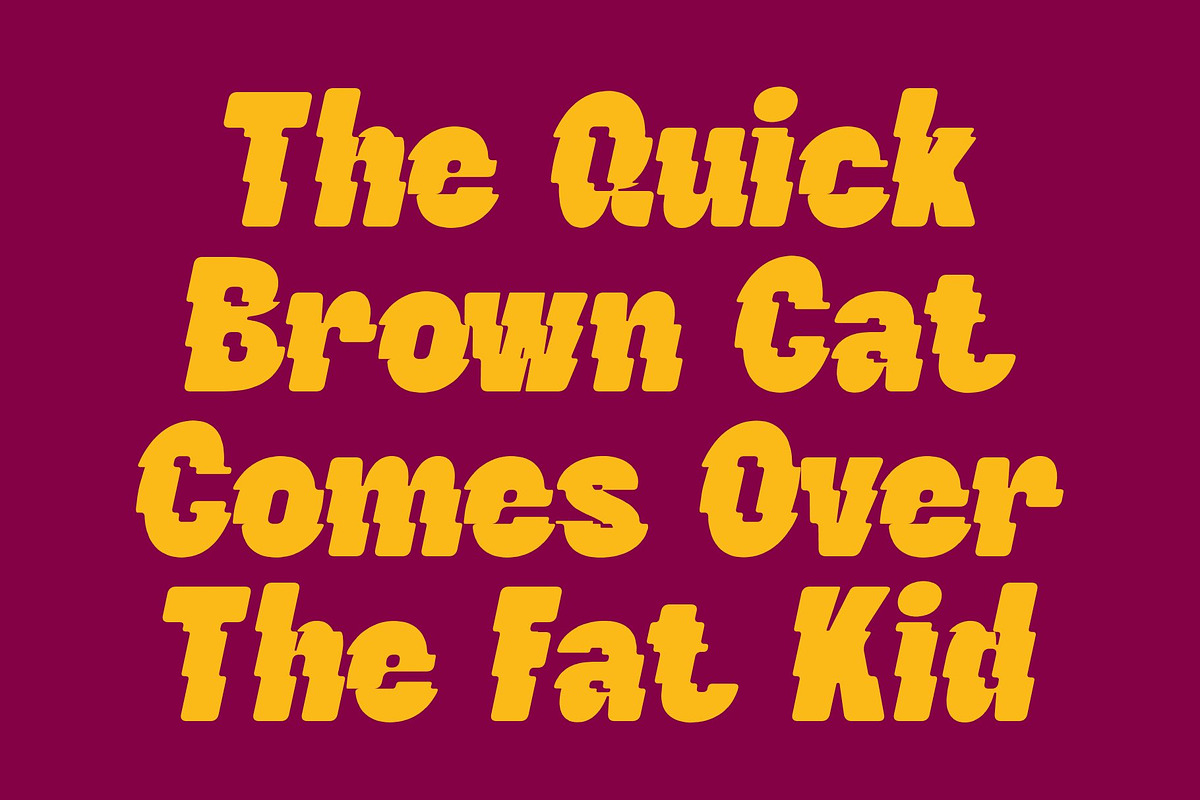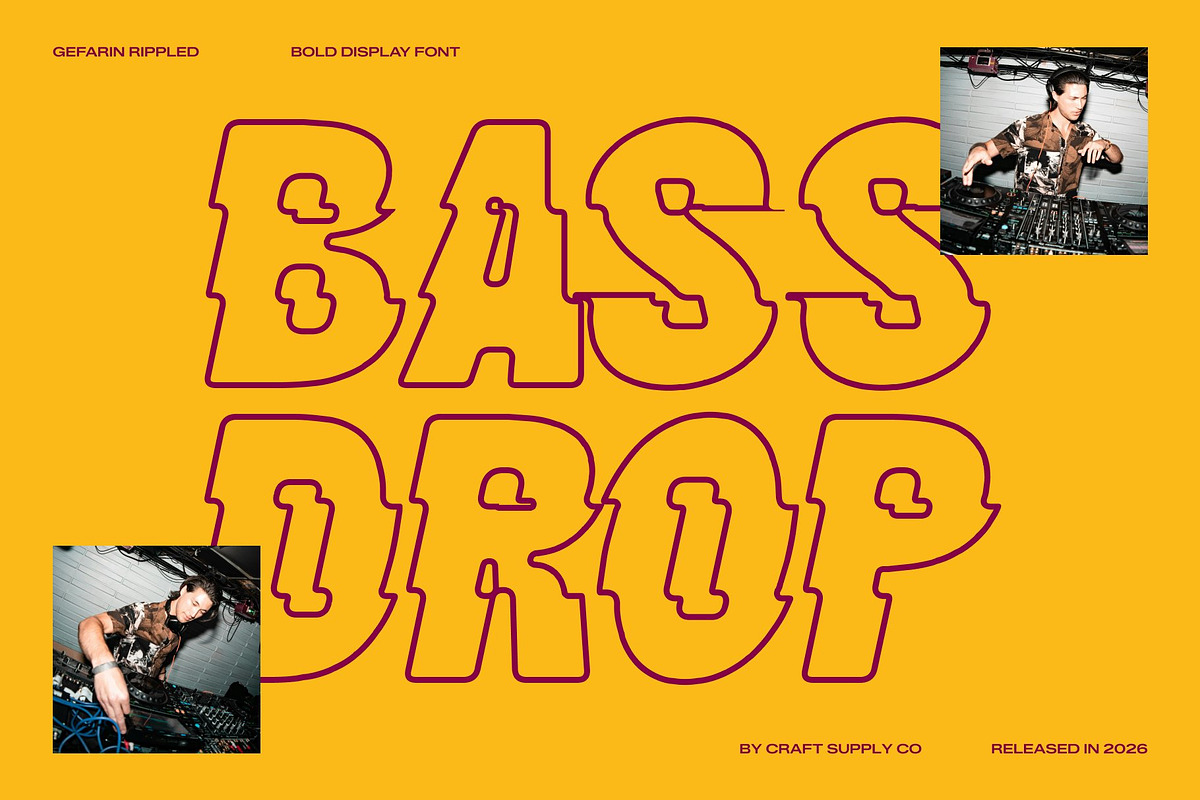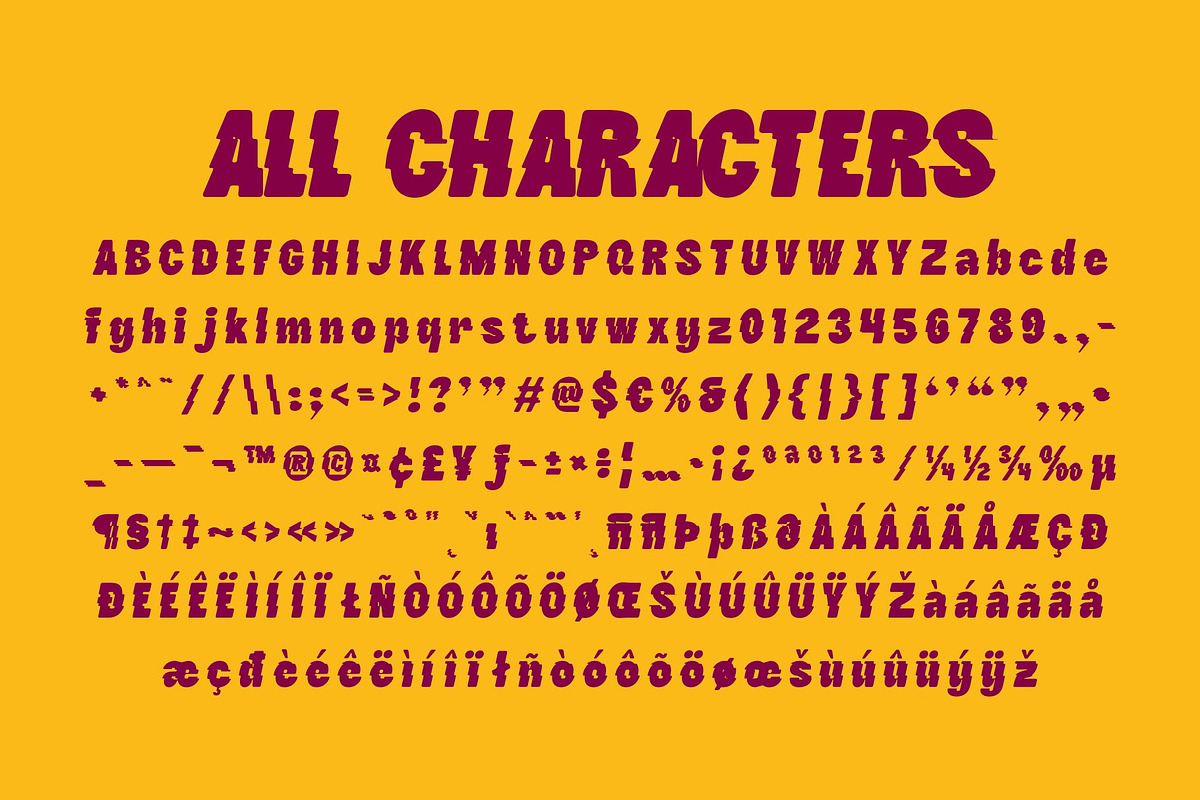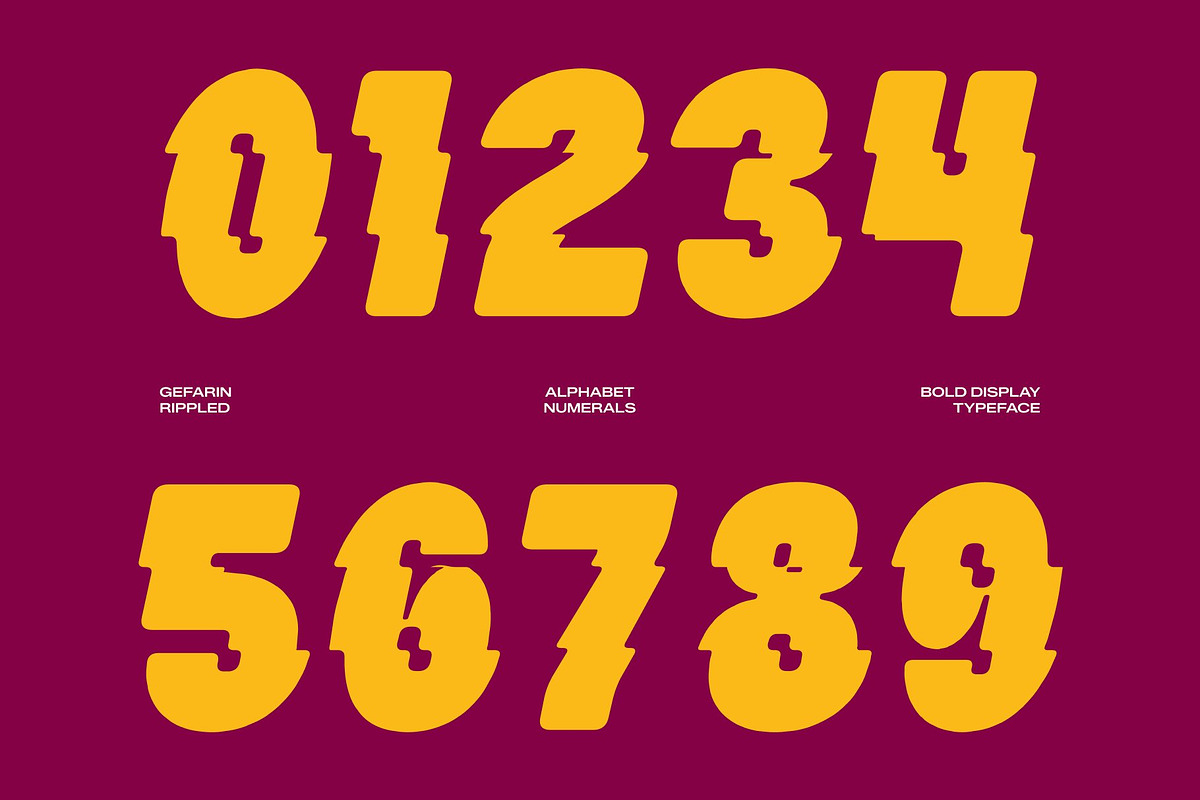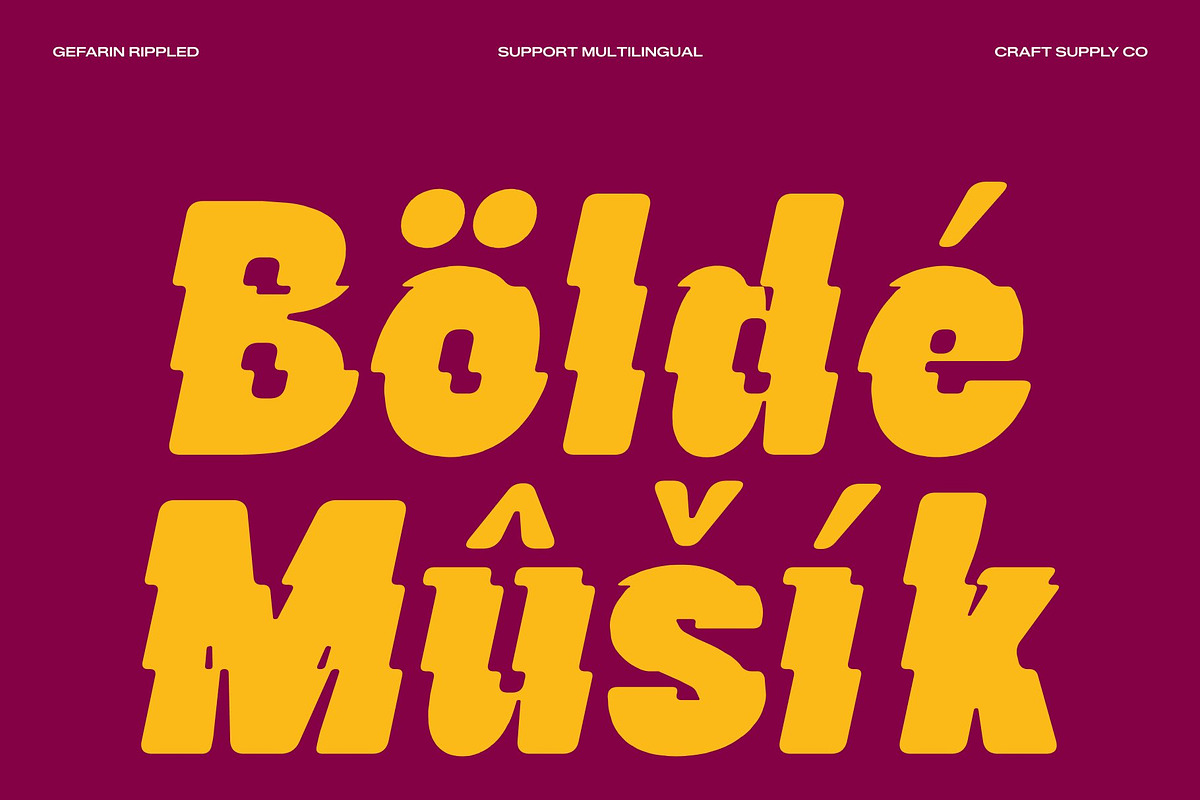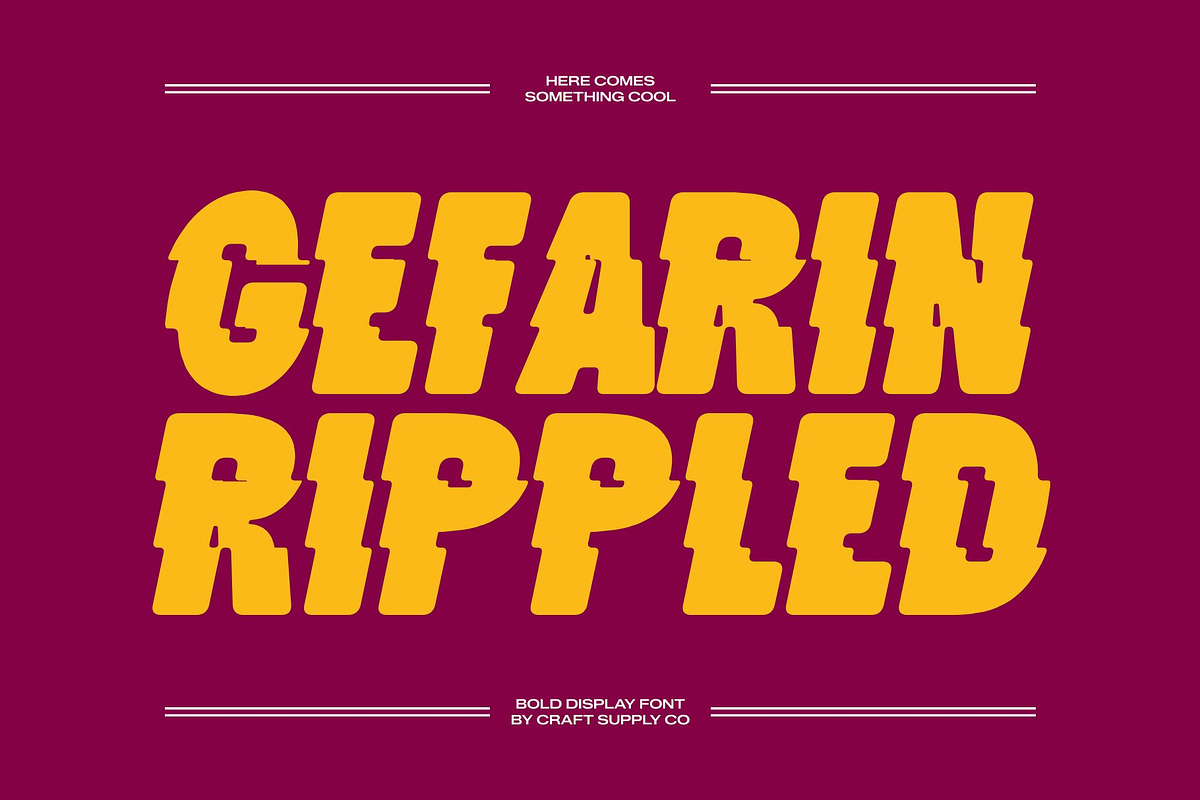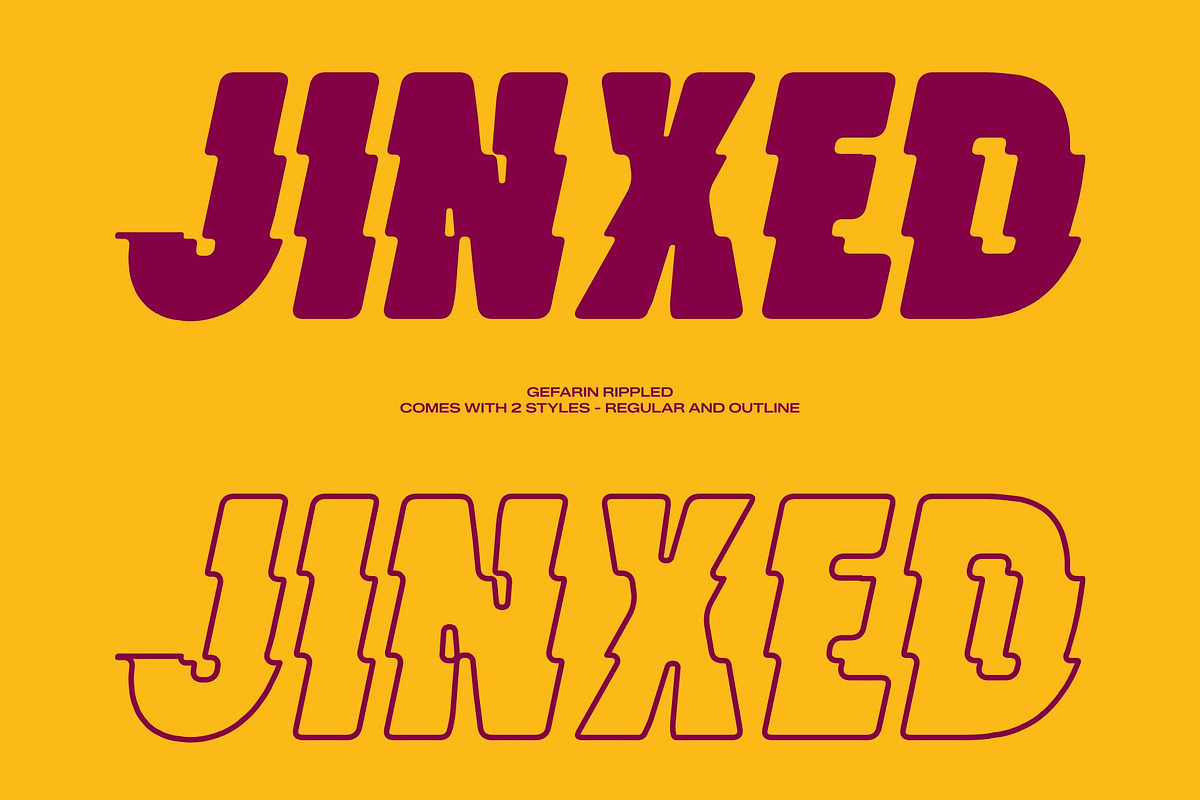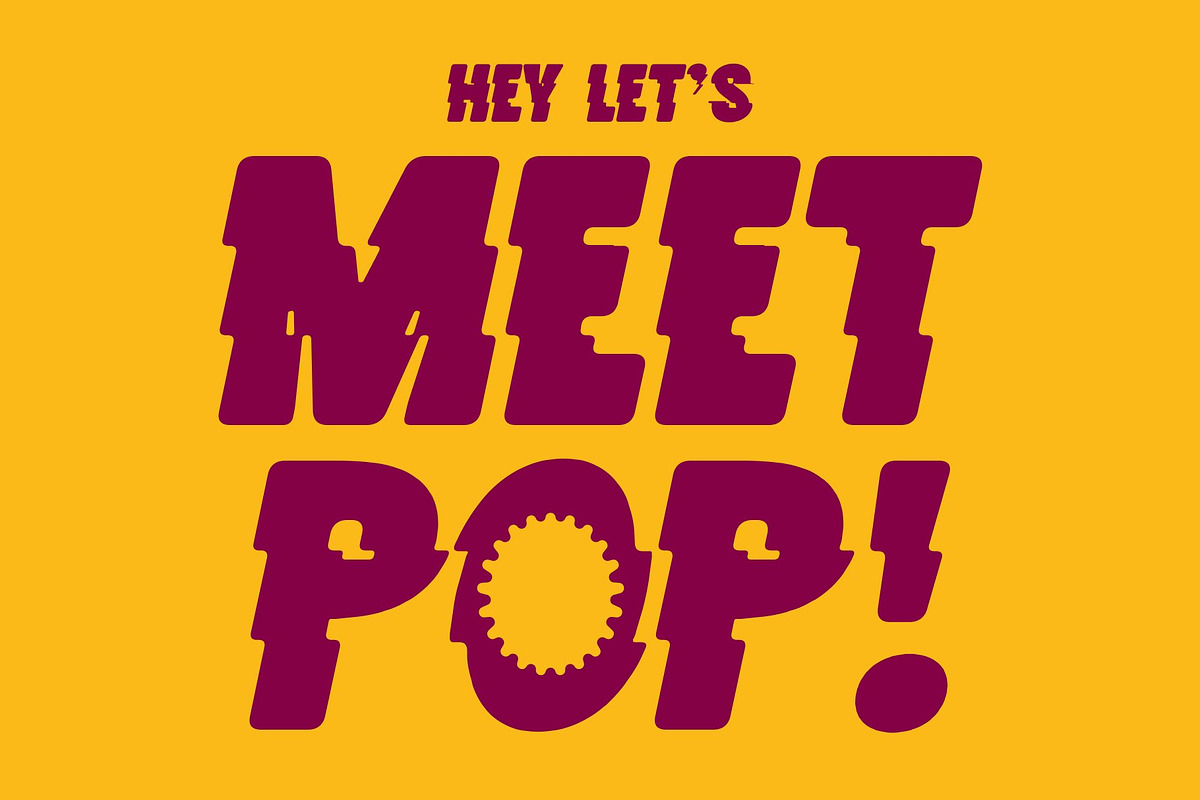
Gefarin Rippled
Gefarin Rippled – Bold Sans Serif Font with Funky Liquid Character
Bold and Funky Sans Serif Design This is a bold sans serif font that perfectly combines professional structure with playful, funky personality. Its strong letterforms create an immediate visual impact, while its expressive character adds a sense of creativity and individuality. The font strikes a unique balance between confidence and charm, allowing it to stand out without sacrificing clarity or sophistication.
Professional Appeal with a Creative Twist Built with clean lines and a solid modern foundation, maintains a polished and professional appearance across a variety of design applications. At the same time, its subtle funky influences introduce warmth, energy, and visual interest that prevent the font from feeling overly formal. This fusion of professionalism and playful expression creates a versatile typographic style capable of adapting to both corporate and creative environments with ease.
Versatile and Eye-Catching for Modern Projects This font excels in headlines, posters, logos, branding systems, advertising campaigns, and social media graphics. Its bold construction ensures strong visibility and excellent readability, while its distinctive personality helps create memorable visual identities.
Rippled Effect for Fluid Motion and Visual Impact The signature rippled distortion introduces a dynamic wave-like movement inspired by water reflections and flowing surfaces. This effect adds depth, energy, and a modern sense of motion to the bold letterforms, making the typography feel more alive and expressive. Perfect for creative branding, music visuals, event promotions, lifestyle campaigns, and contemporary content.